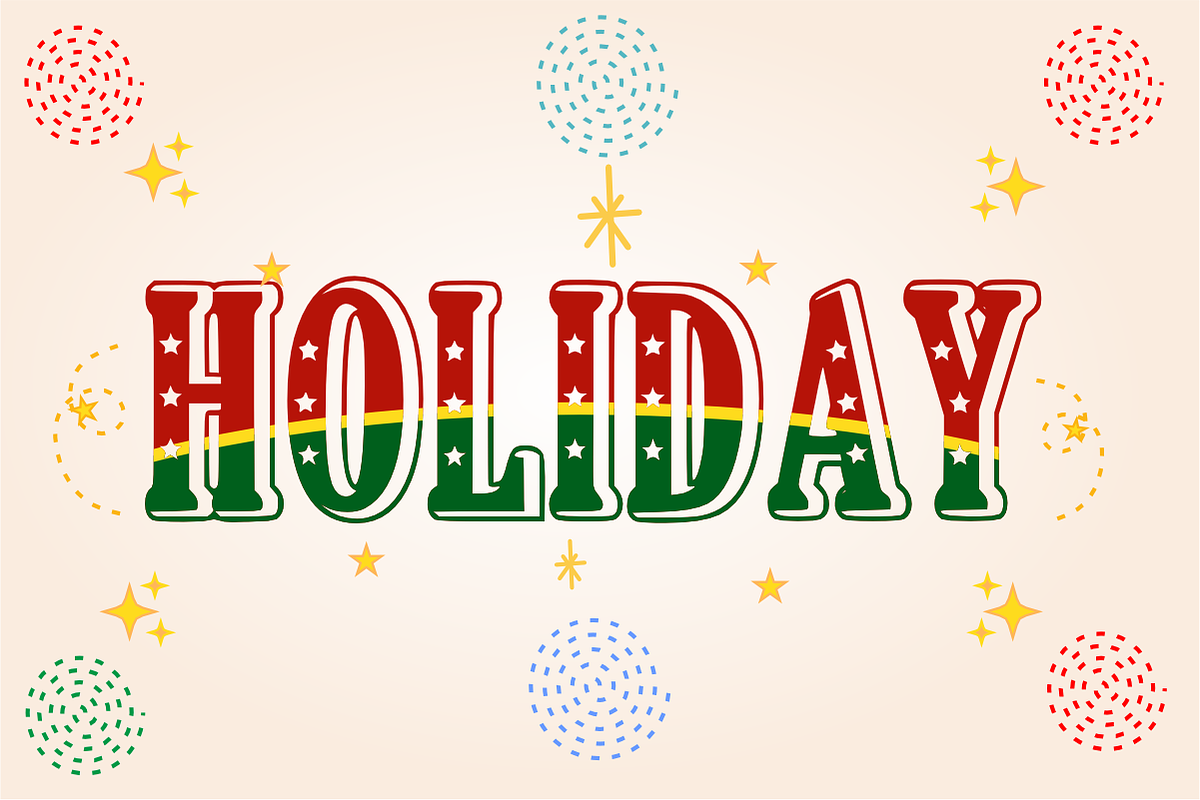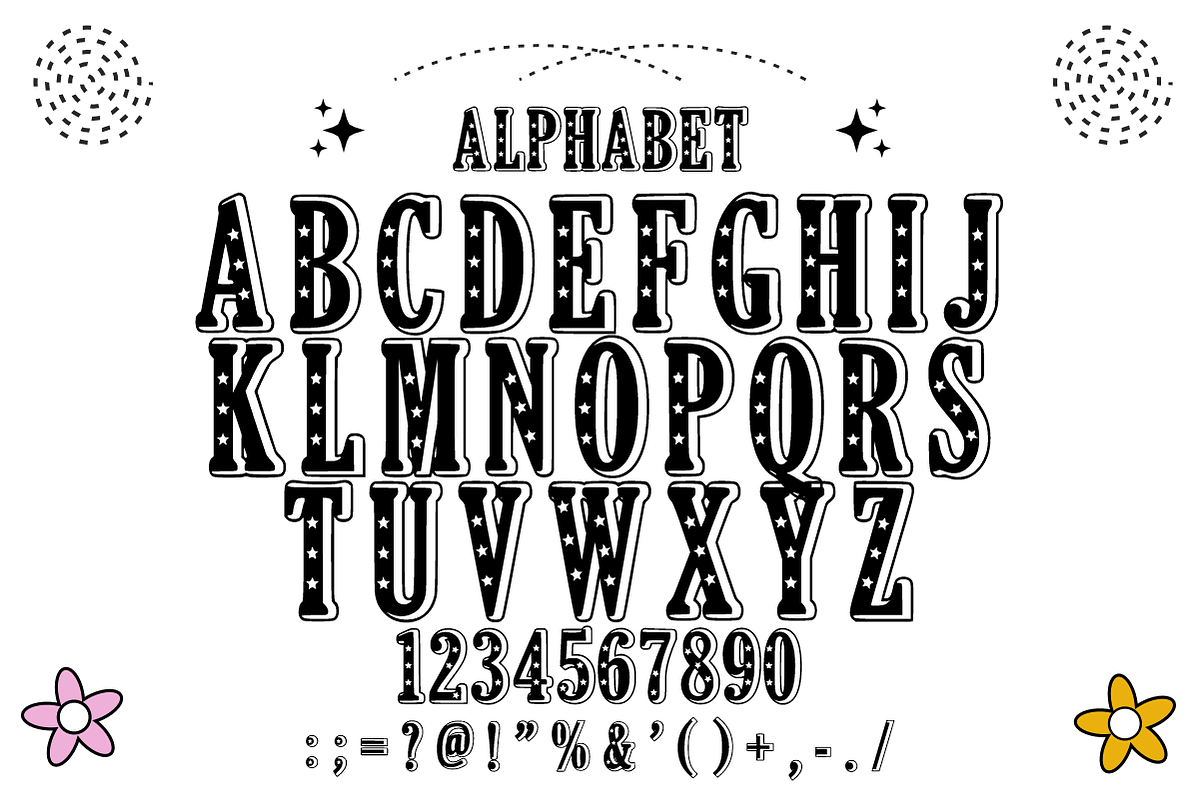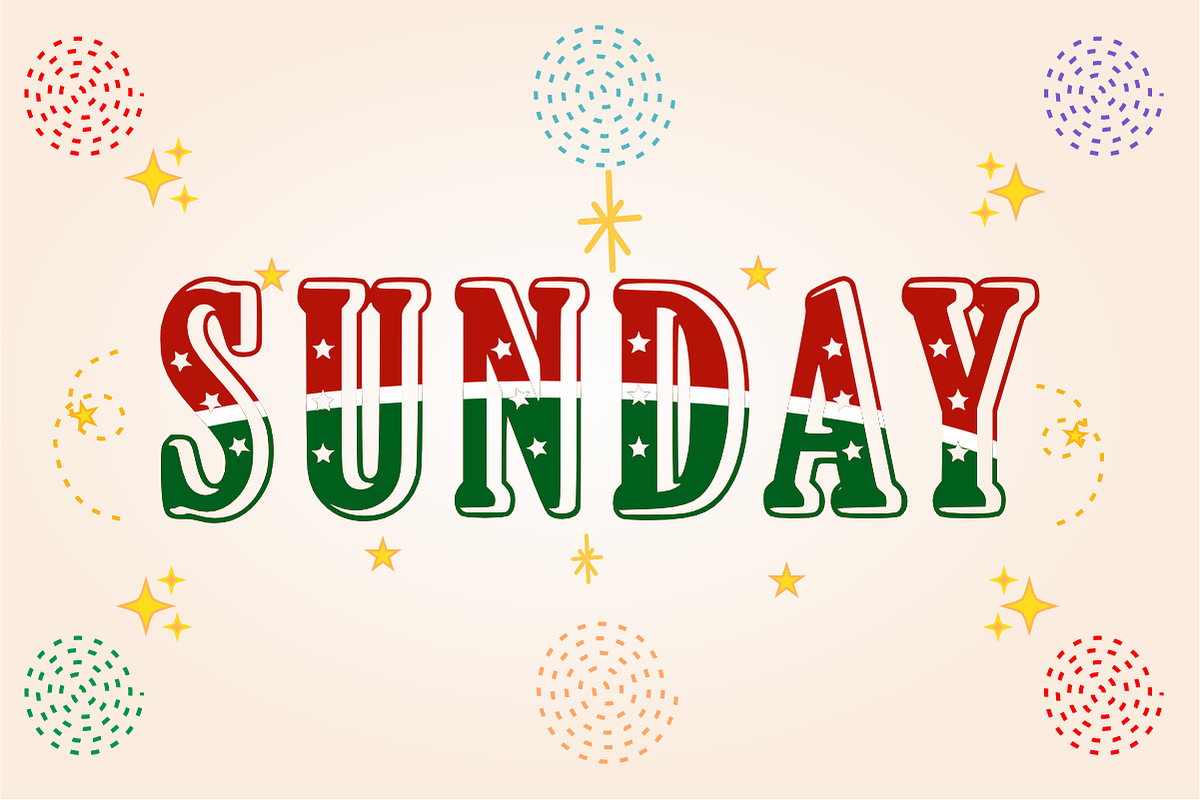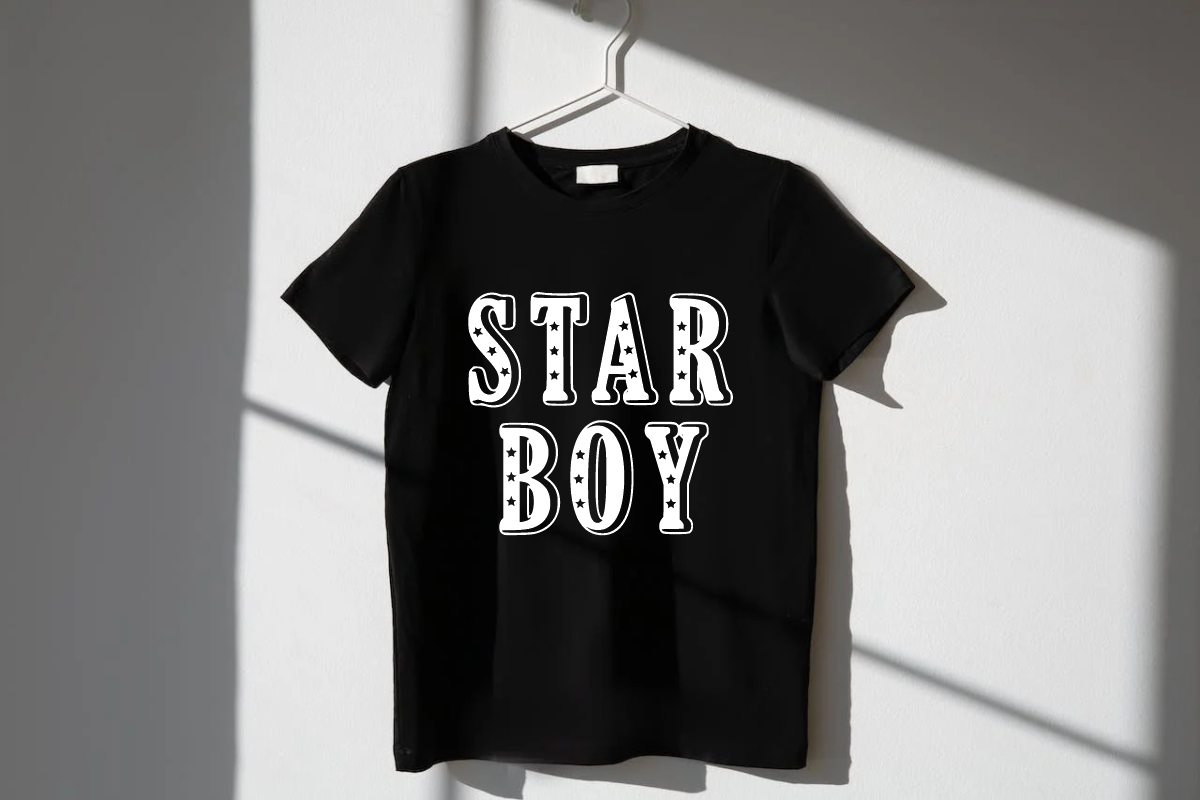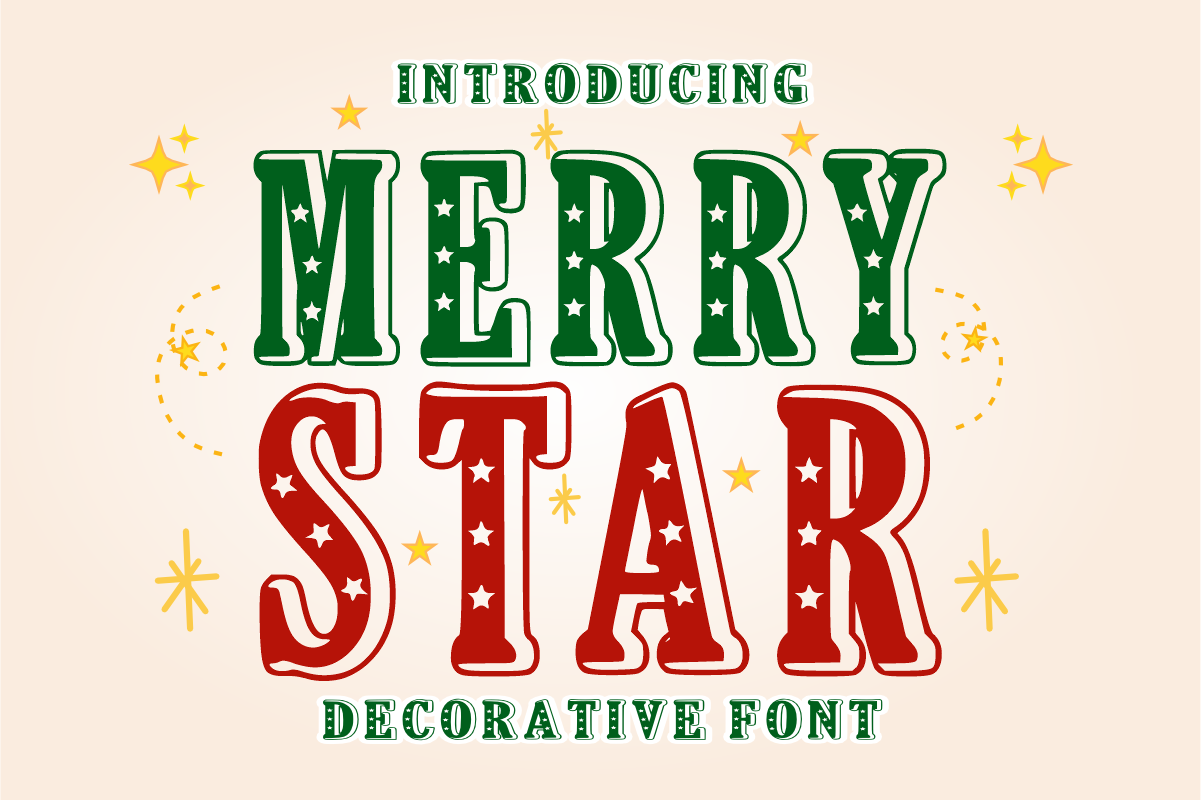
Merry Star - Festive Christmas Font
Merry Star is a festive, decorative display font featuring bold letterforms filled with magical star accents and a subtle vintage shadow effect. Brimming with holiday cheer and magical celebration vibes, this enchanting font brings a cozy, festive pop to your Christmas crafts, holiday packaging, and seasonal designs. Every character is cleanly vectorized to guarantee high-resolution prints and smooth, effortless cutting on Cricut and Silhouette machines.
Uppercase Character Set
Numbers & Basic Punctuation
Ideal For:
Cricut, Silhouette, and HTV vinyl cutting projects for Christmas shirts, stockings, and wooden signs
Etsy sellers creating custom holiday apparel, festive mugs, gift tags, and Christmas ornaments
Print-on-Demand (POD) products, holiday sweater graphics, and seasonal tote bags
Canva template creators designing Christmas party invitations, greeting cards, and holiday social media kits
Custom die-cut sticker packs, planner decals, and holiday digital scrapbooking
Teachers Pay Teachers (TpT) authors making seasonal classroom activities and winter bulletin boards